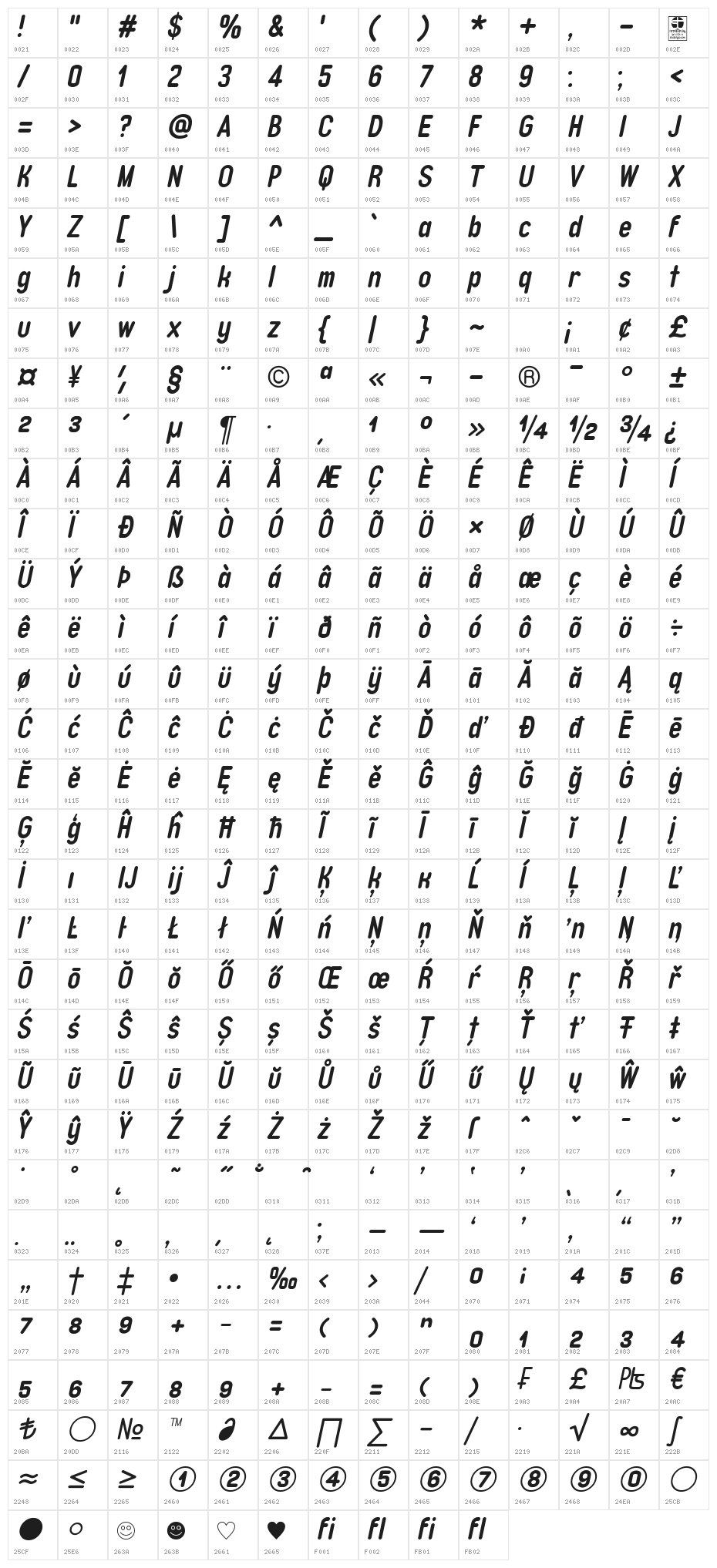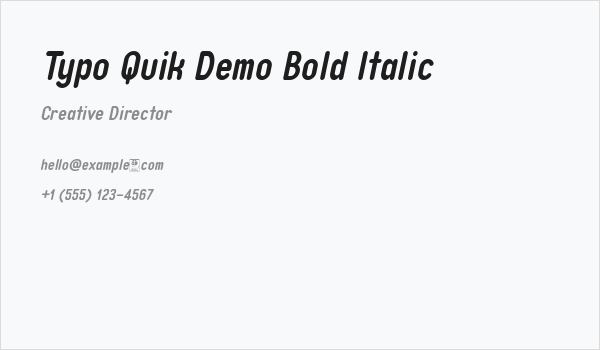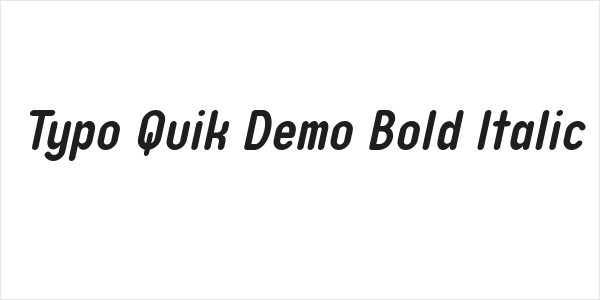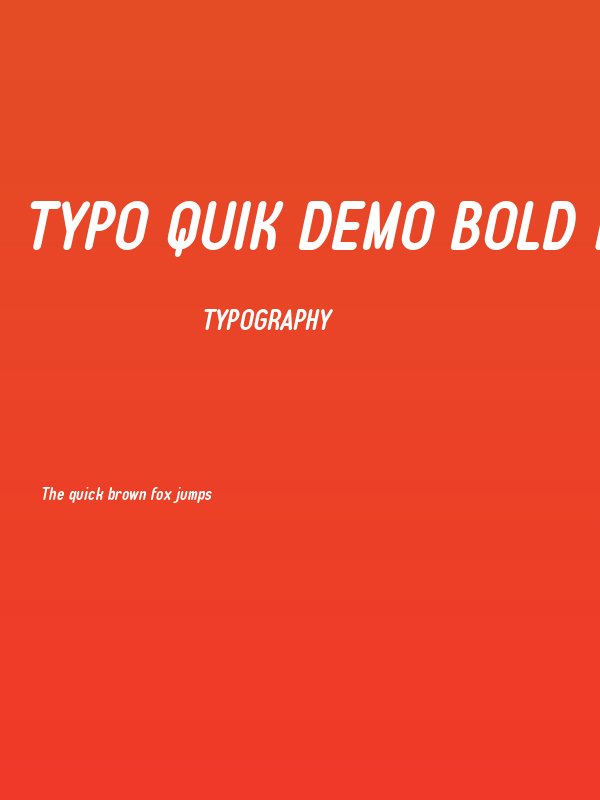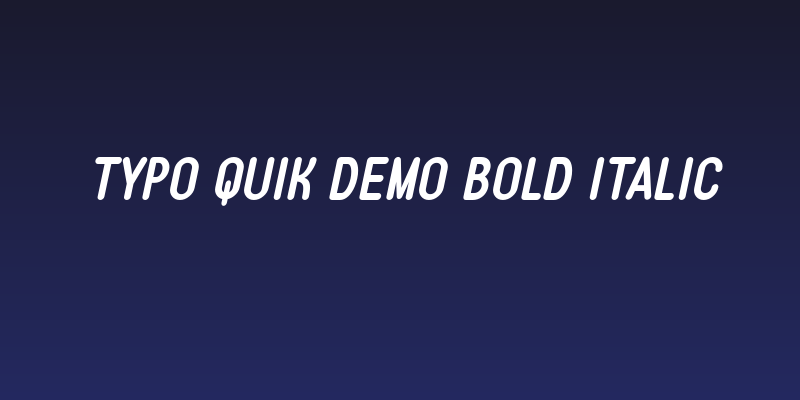
Typo Quik Demo Bold Italic Font
Typo Quik Demo Bold Italic Description
This font features a bold and italic style, characterized by its rounded and smooth letterforms. The uppercase and lowercase letters maintain a consistent slant, giving a dynamic and forward-moving appearance. The numerals are clear and legible, with a uniform thickness that matches the letters. Special characters are well-integrated, maintaining the same bold and italicized style. The overall design is modern and friendly, suitable for a variety of applications where a bold statement is needed.
| Use Case | Headlines, Logos, Advertising |
| Proposed Projects | Ideal for branding, advertising, headlines, and any project requiring a bold, modern look. |